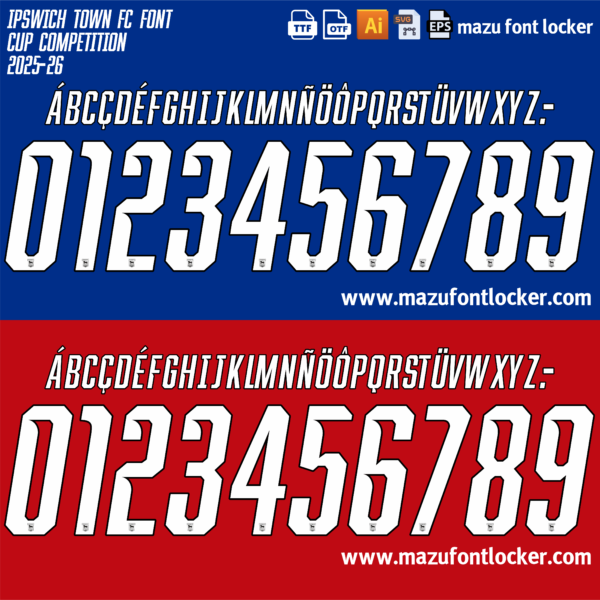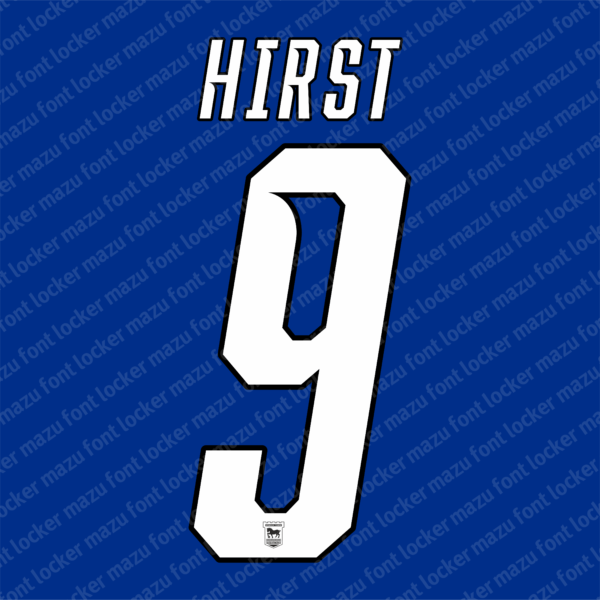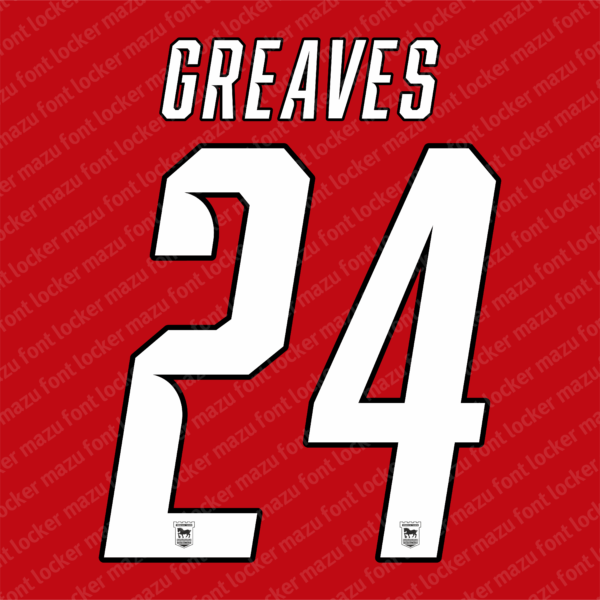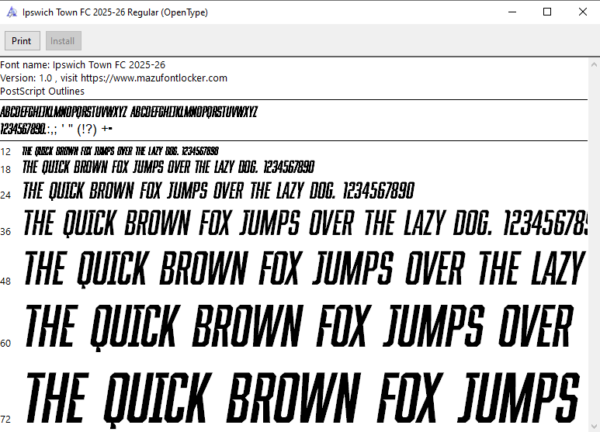
Ipswich Town FC 2025-26 Font Vector – Vibrant Championship Promotion
Ipswich Town FC 2025-26 Font is a high-quality football jersey font vector designed to replicate the official lettering and numbering style used during the 2025-26 season. This Ipswich Town FC 2025-26 font is perfect for designers, football fans, and creators who want accurate and professional jersey customisation.
Inspired by the official kit of Ipswich Town FC, this Ipswich Town FC 2025-26 font delivers a clean and authentic match-day appearance. Every letter and number has been carefully recreated to match the real jersey design, ensuring your projects look realistic and professional.
Ipswich Town FC 2025-26 Font Vector – Authentic Jersey Lettering
Ipswich Town FC 2025-26 font is a high-quality football jersey font vector created to replicate the official lettering and numbering style used during the iconic 2025-2026 Season. Perfect for designers, football fans, and jersey customisation projects, this font set delivers an authentic and professional match-day appearance.
Inspired by the original Italy national team kit, every letter and number has been carefully recreated to ensure accurate retro styling for both digital and print projects.
🔥 Ipswich Town FC 2025-26 Font Features
- Authentic 2025-26 Ipswich Town FC jersey lettering style
The authentic lettering style helps recreate the classic look of the Ipswich Town FC 2025-26 kit with professional accuracy.
Unlike generic jersey fonts, this set is designed with a strong focus on authenticity and accuracy. Every detail is based on the original match lettering style used during the 2025-2026 season, helping designers and collectors create realistic football shirt designs.
This Ipswich Town FC 2025-26 font vector set is designed for authentic football jersey customization and works perfectly for retro football projects, collector designs, and professional sportswear artwork.